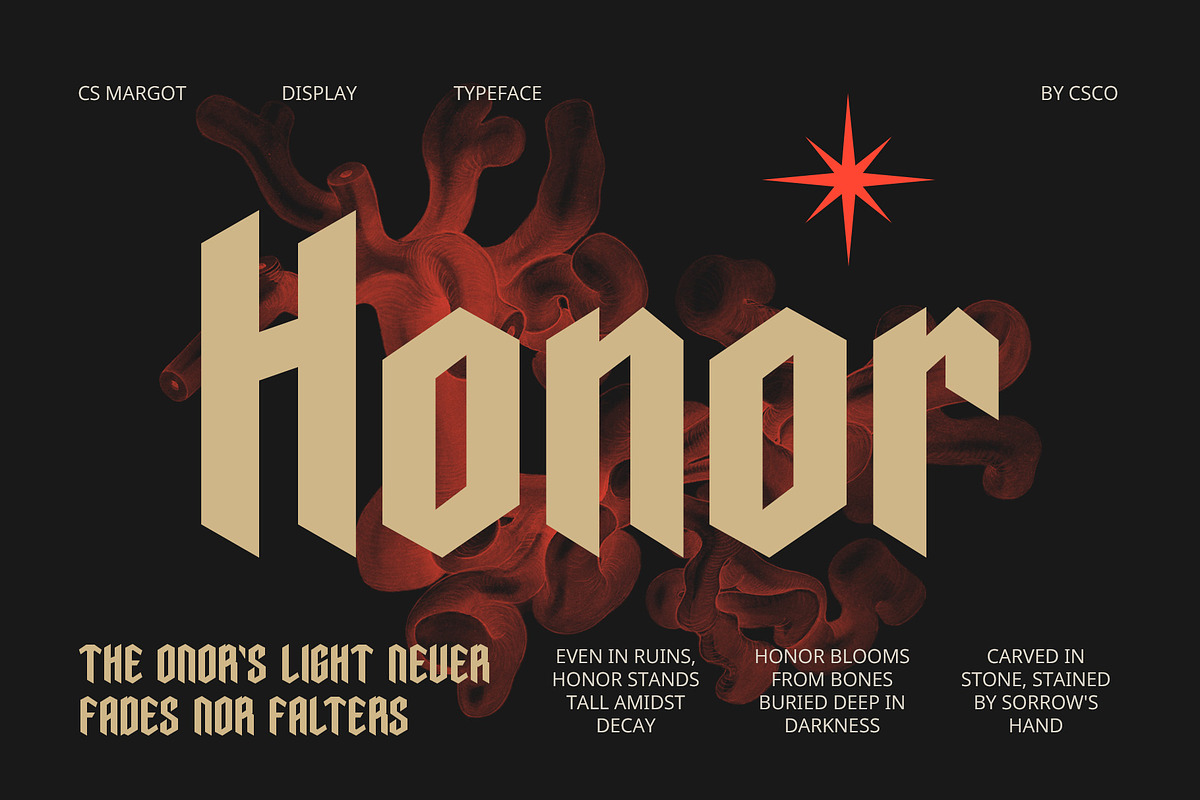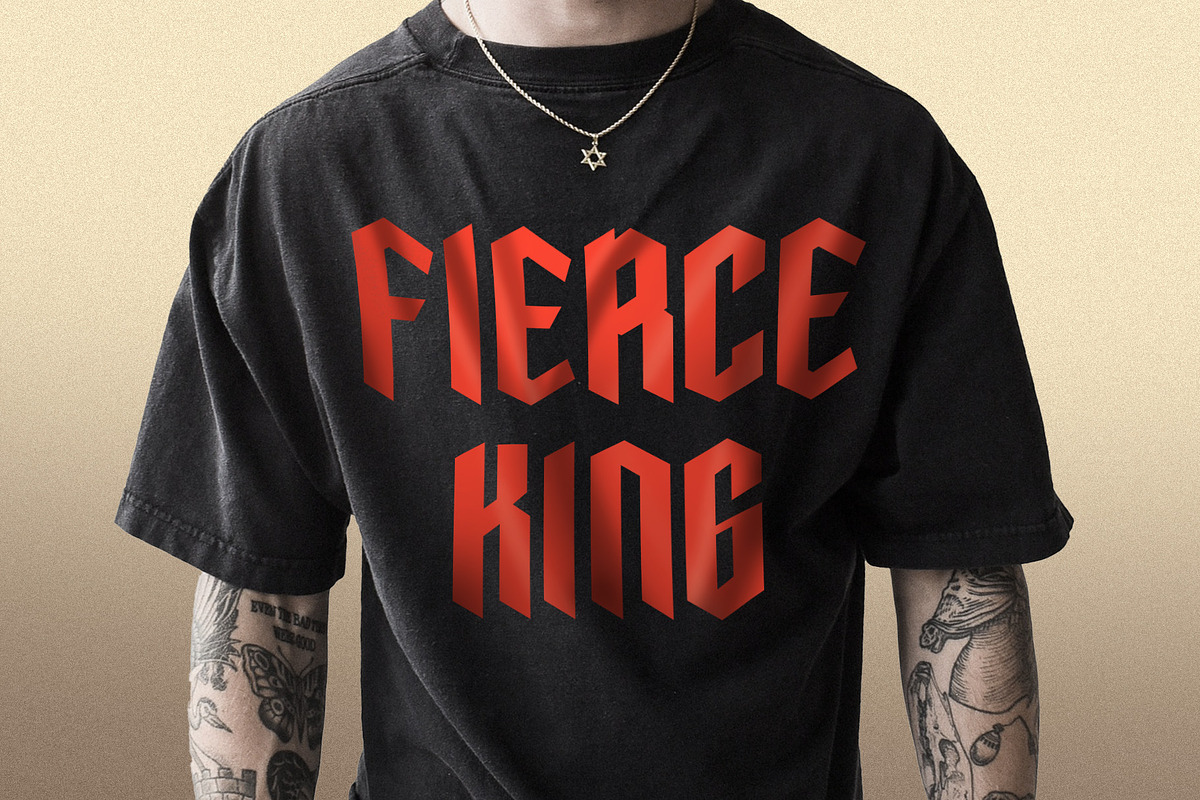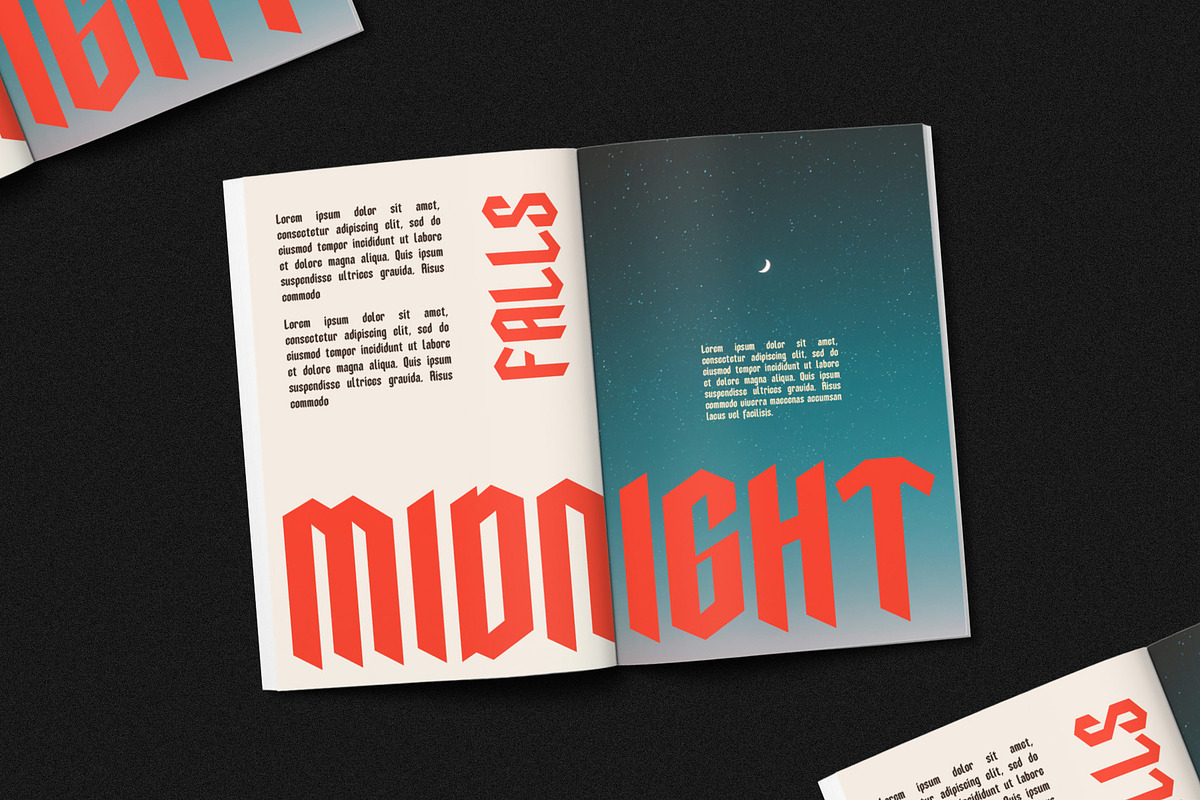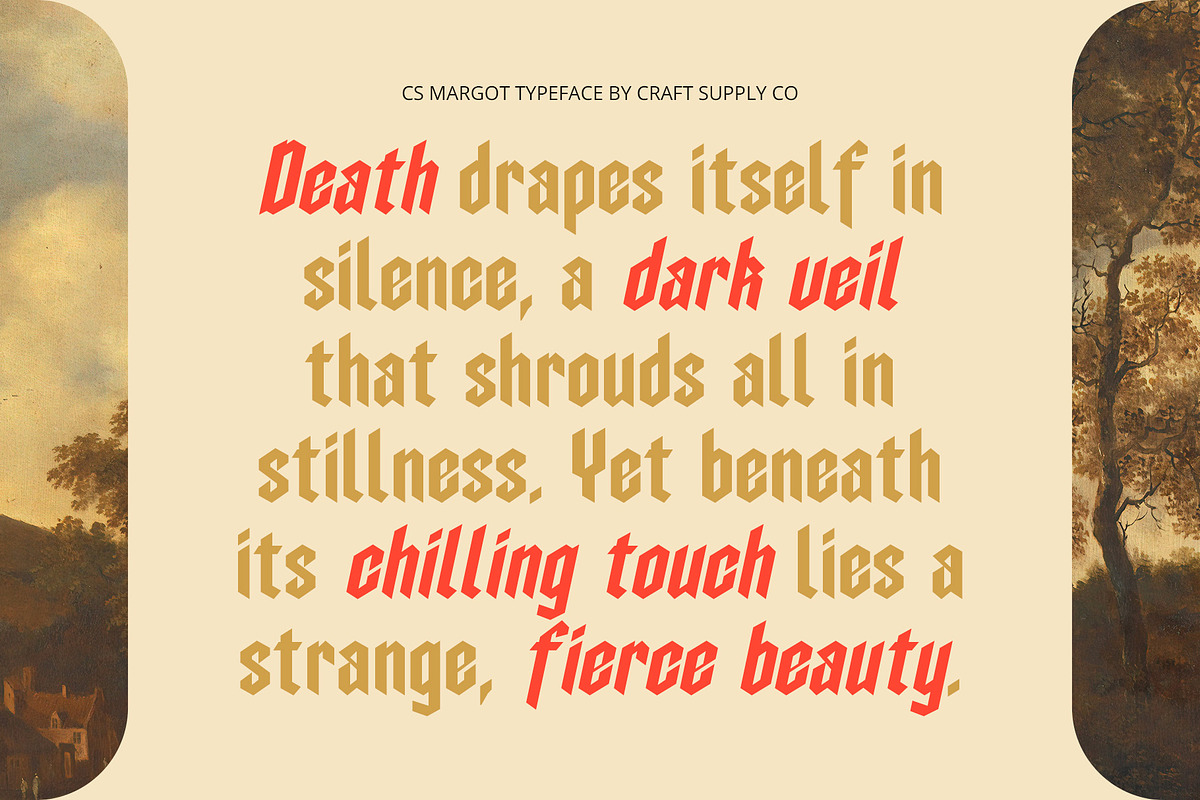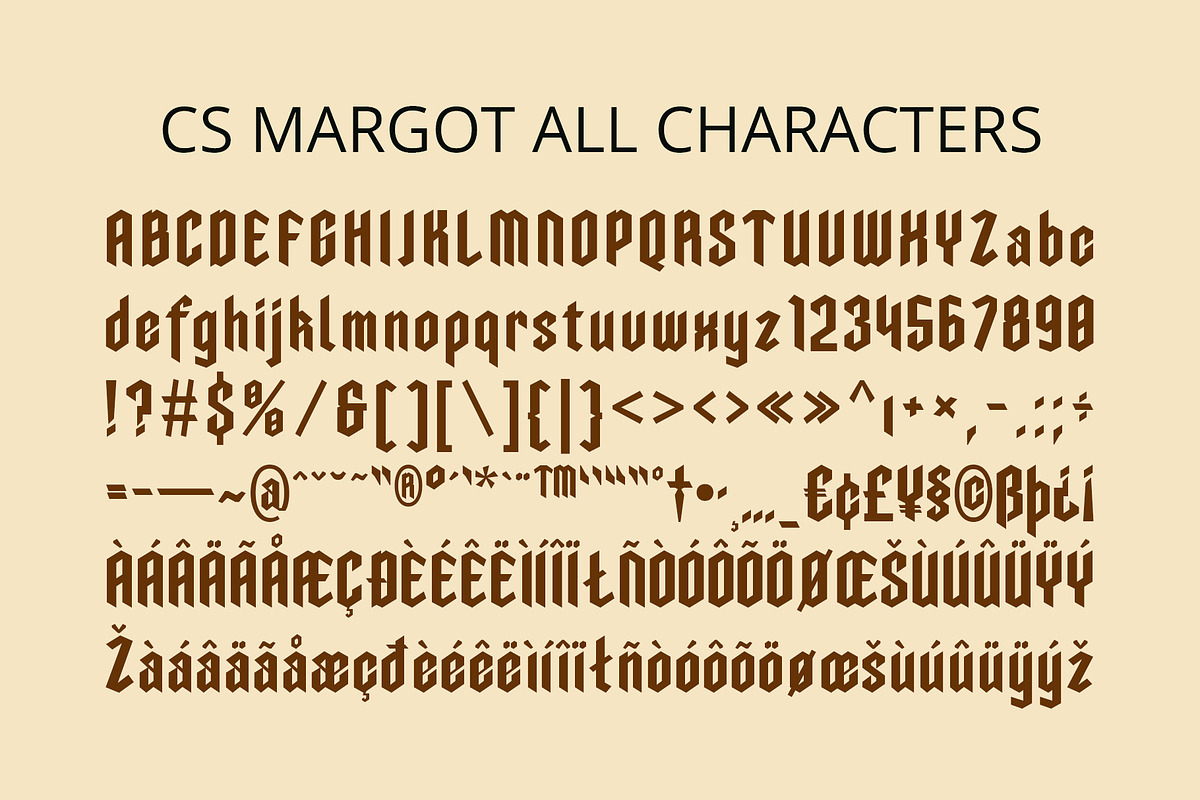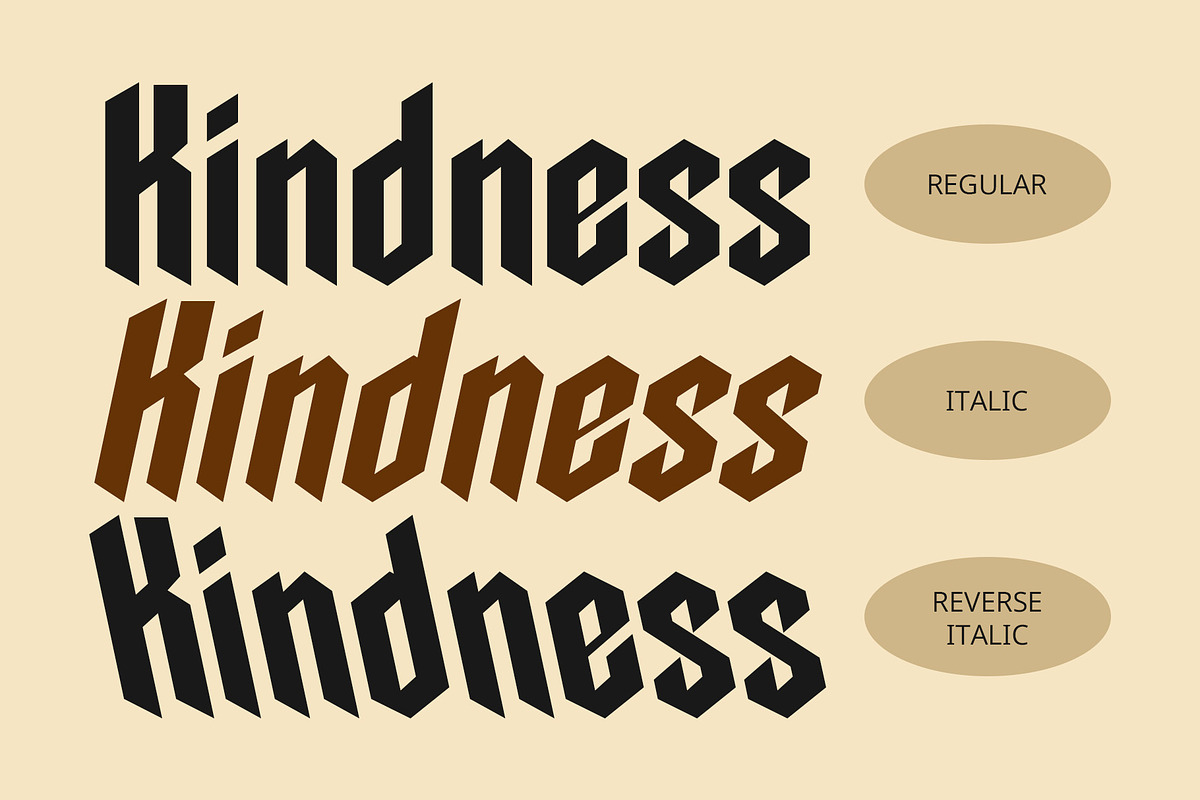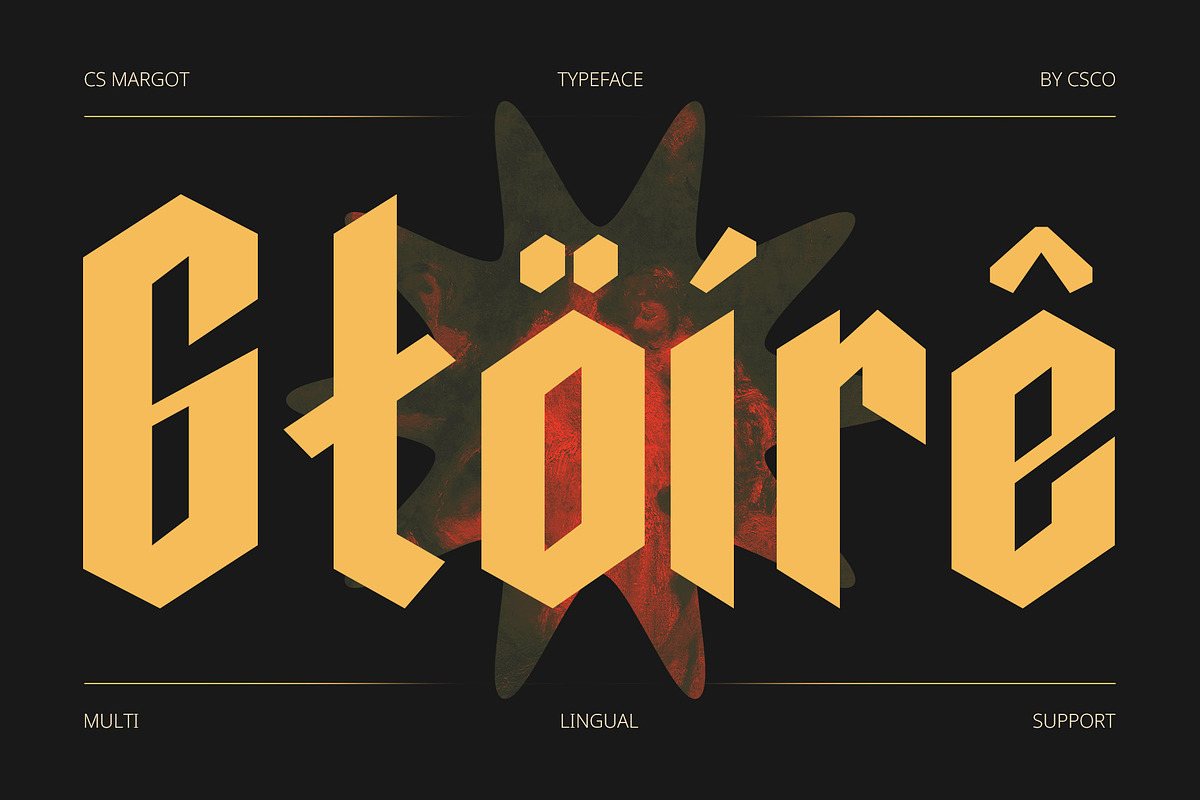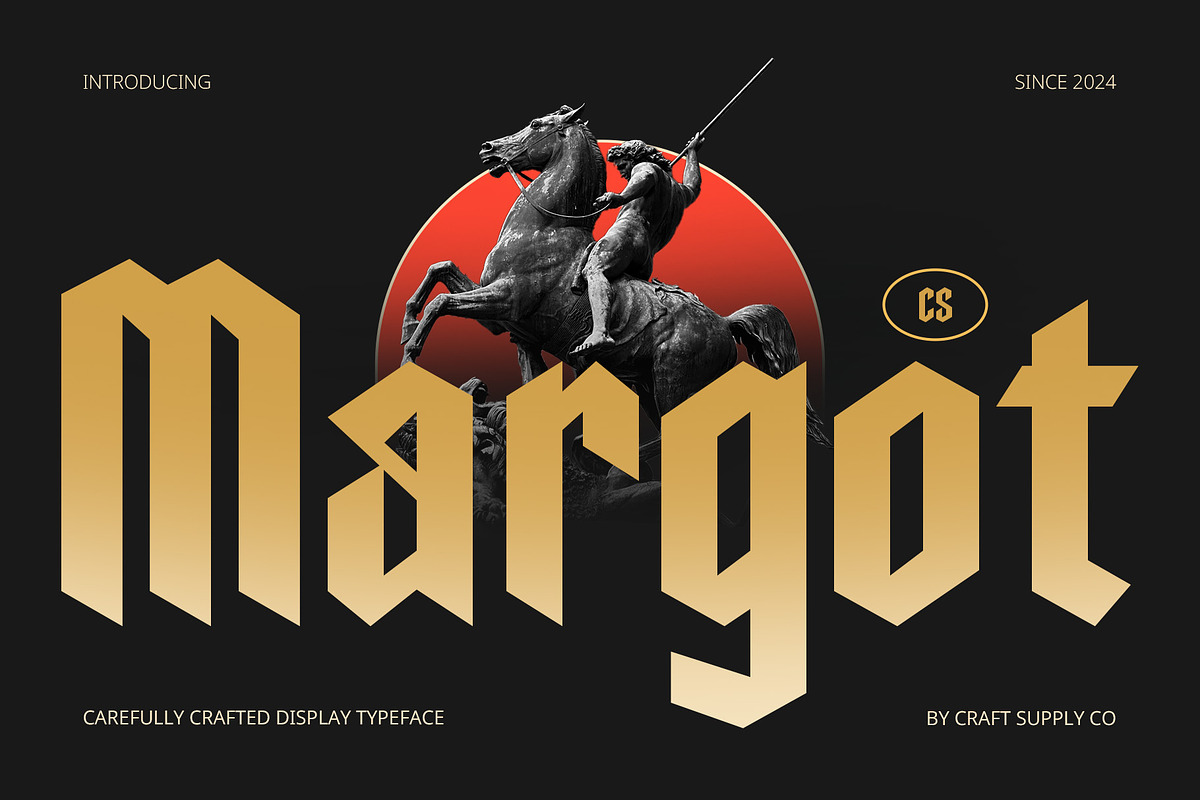
CS Margot – Blackletter Font
CS Margot – Blackletter Font: A Bold Tribute to Tradition and Elegance
Classic Blackletter with Medieval Influence CS Margot is a bold blackletter display font that blends traditional design elements with dramatic flair. Featuring strong vertical lines and sharp, angular edges, this font is inspired by medieval and gothic calligraphy, exuding a sense of historical weight and grandeur. Its intricate detailing and decorative flourishes elevate the design, making it an ideal choice for projects that need to evoke authority, sophistication, and a vintage aesthetic.
Intricate Detailing for Timeless Elegance With its thick strokes and ornamental flourishes, CS Margot brings an artistic touch to the classic blackletter style. The detailed letterforms create a powerful and commanding presence, while maintaining the vintage charm and refined elegance that blackletter fonts are known for. The precision in the design adds depth, making it an excellent choice for luxury branding and formal applications.
Perfect for Authority and Prestige Ideal for luxury branding, formal invitations, and historical-themed projects, CS Margot exudes a strong sense of authority and prestige. The bold structure and elaborate details ensure it stands out, while the traditional blackletter form lends an air of timeless sophistication. Whether used for high-end branding or ceremonial documents, CS Margot makes a powerful impression and adds gravitas to any design.